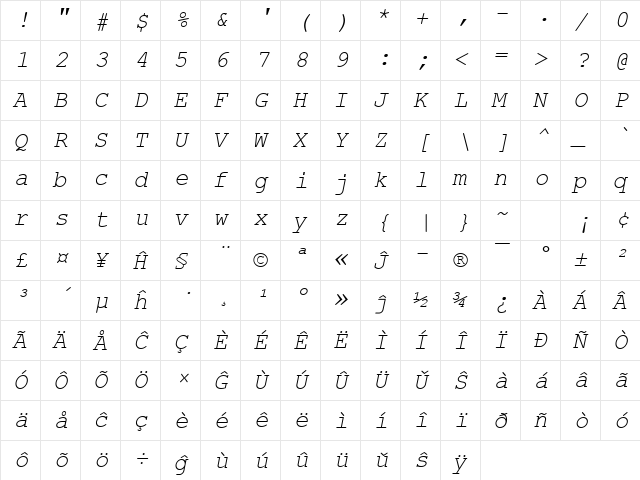
Courier New Eo Italic
Design Context for Courier New Eo Typeface
Courier New Eo brings the precise, column-aligned rhythm of monospaced typography to designs that value technical clarity and systematic order. The slanted form adds forward momentum and visual energy.
Pro Tip: Use Courier New Eo with slightly increased line-height for extended reading — fixed-width spacing can feel dense in longer passages without extra breathing room.